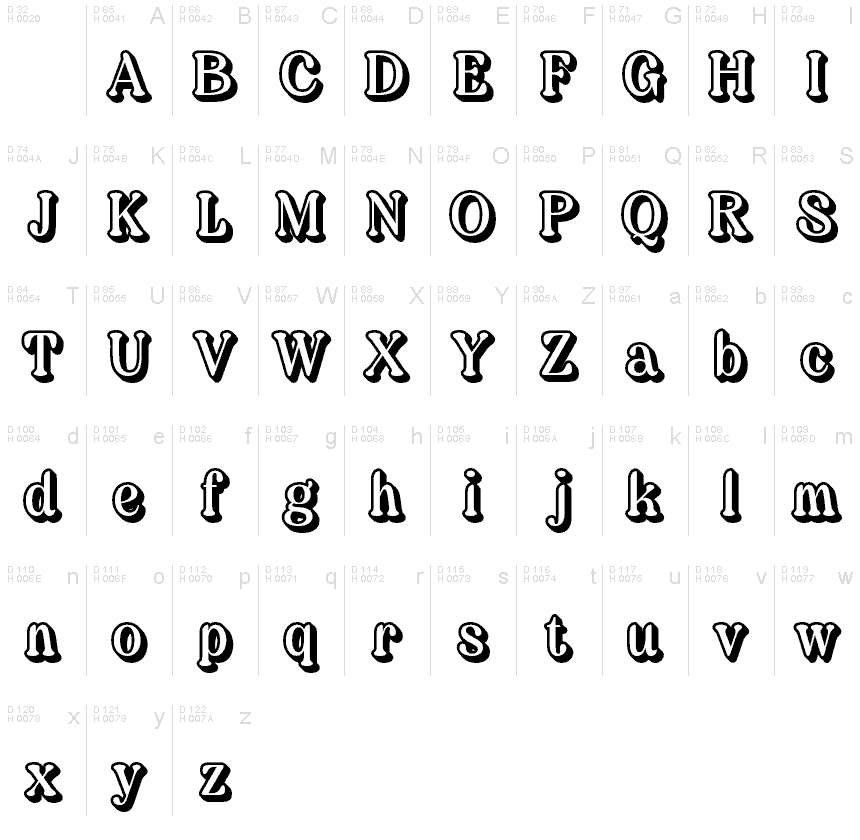
Forena-ExtrudeRight
Forena ExtrudeRight font by Craft Supply Co. impresses with a delightful 70s-inspired retro aesthetic of a 3D appearance and decorative elements. The free serif font is playful and fun since it uses the capital letter set to introduce loyal readers to ornate curves within its display. Each character is placed in an accentuated manner to result in an eye-catching appearance.
Designers can look forward to using this stunning resource for album covers, book covers, movie posters, video game design, signage design, artistic posters, website headers/footers, magazine/booklet front pages, or as the main headline in newspaper articles.